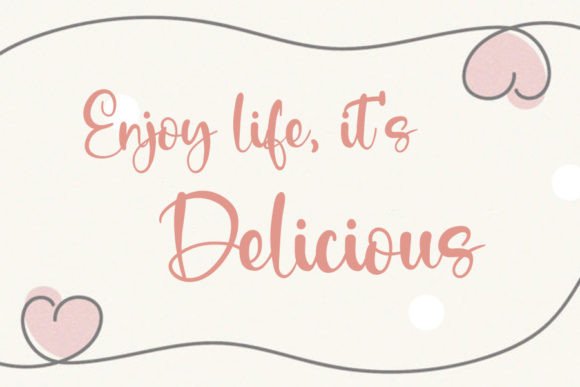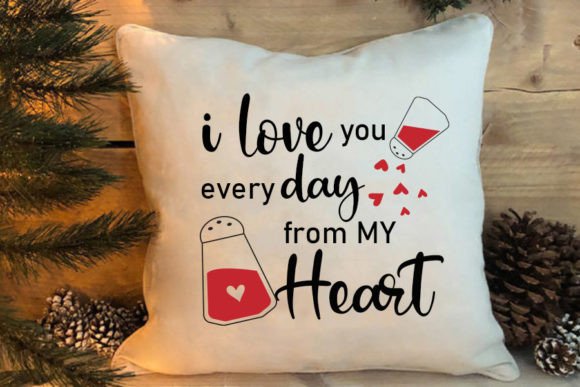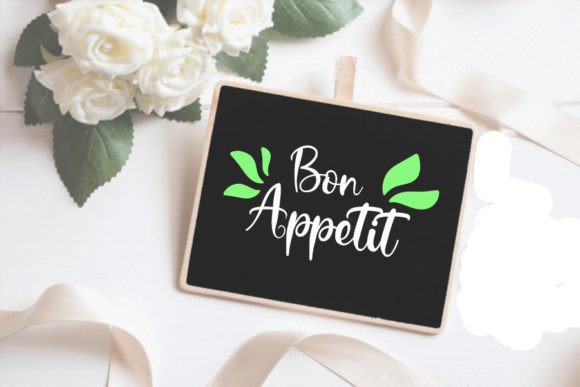
Introducing Delicious Font: Elevate Your Designs with Elegance
Are you on the hunt for a font that exudes luxury and sophistication? Look no further than Delicious Font, a stunning handwritten font that is sure to take your designs to the next level. With its elegant touch and timeless style, Delicious Font is the perfect choice for designers and crafters looking to add a touch of class to their projects.
The Characteristics of Delicious Font
Delicious Font is a luxury handwritten font that boasts an incredibly distinct and timeless style. Its elegant touch is perfect for creating spectacular designs that are sure to impress. Here are some of the key characteristics that make Delicious Font stand out:
- Elegant and Refined: Delicious Font features a refined and elegant design that is perfect for creating sophisticated designs.
- Handwritten Style: With its handwritten style, Delicious Font adds a personal touch to your designs, making them stand out from the crowd.
- Timeless Appeal: Unlike trendy fonts that quickly go out of style, Delicious Font has a timeless appeal that ensures your designs will remain stylish for years to come.
- Versatile: Delicious Font is incredibly versatile, making it perfect for a wide range of design projects, from logos and branding to invitations and packaging.
Why Choose Delicious Font?
So, why should you choose Delicious Font for your design projects? Here are just a few reasons:
- Stand Out from the Crowd: With its unique and elegant design, Delicious Font is sure to make your designs stand out from the crowd.
- Perfect for Luxury Brands: If you’re working with a luxury brand, Delicious Font is the perfect choice. Its sophisticated design is sure to appeal to high-end clients.
- Easy to Read: Despite its elegant design, Delicious Font is incredibly easy to read, making it perfect for body text as well as headlines.
- High-Quality Design: Delicious Font is a high-quality design that is sure to impress even the most discerning designers.
Using Delicious Font in Your Designs
So, how can you use Delicious Font in your designs? Here are a few ideas to get you started:
- Logos and Branding: Use Delicious Font to create stunning logos and branding materials that are sure to impress.
- Invitations and Stationery: Add a touch of elegance to your invitations and stationery with Delicious Font.
- Packaging Design: Use Delicious Font to create beautiful packaging designs that stand out on store shelves.
- Digital Designs: Delicious Font is perfect for digital designs, including social media graphics, website headers, and more.
Tips for Getting the Most Out of Delicious Font
Here are a few tips for getting the most out of Delicious Font:
- Experiment with Different Sizes: Delicious Font looks great in a variety of sizes, so don’t be afraid to experiment to find the perfect size for your design.
- Pair with Other Fonts: Delicious Font pairs perfectly with other fonts, so try combining it with a bold font for added contrast.
- Use it Sparingly: While Delicious Font is incredibly elegant, it can be overwhelming if used too much. Use it sparingly to create a sense of luxury and sophistication.
| Author | Snowman Studio |
In conclusion, Delicious Font is a luxury handwritten font that is sure to elevate your designs to the next level. With its elegant touch and timeless style, it’s the perfect choice for designers and crafters looking to add a touch of class to their projects. Whether you’re working on a logo, invitation, or packaging design, Delicious Font is sure to impress. So why wait? Fall in love with Delicious Font today and start creating spectacular designs!